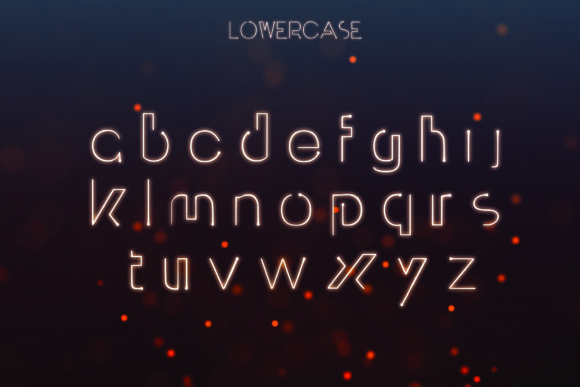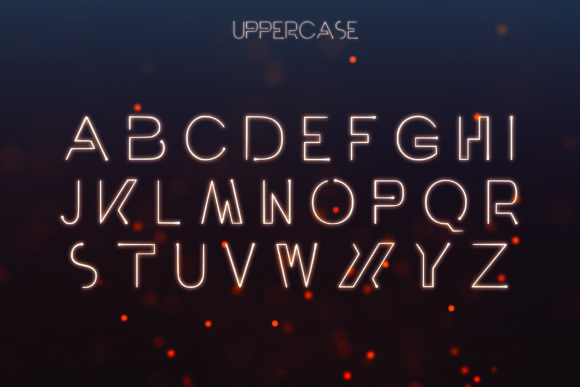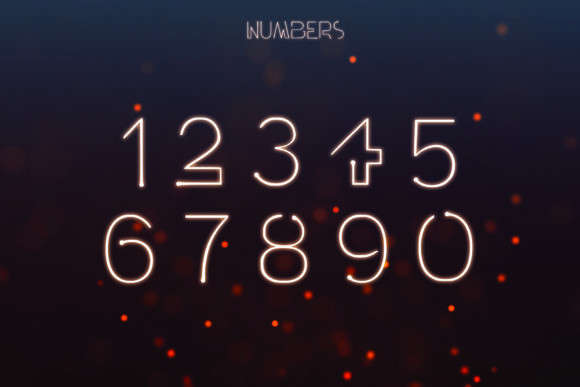
Introduction to Perehilion Font
Imagine you’re working on a creative project, and the perfect font to elevate your design is just out of reach. The right font can make all the difference in conveying the message and capturing the audience’s attention. But what if you stumbled upon a font that not only meets but exceeds your expectations? Welcome to the world of Perehilion Font, a game-changing display font that’s about to revolutionize the way you design.
As a designer, you’re constantly on the lookout for high-quality design resources that can help you take your projects to the next level. Perehilion Font is one such resource that’s sure to impress. With its futuristic feel and sleek design, this font is perfect for any creative project that requires a touch of modernity. And the best part? It’s available for free download, making it an instant favorite among designers.
Whether you’re working on a graphic design project, a website, or a social media campaign, Perehilion Font is an excellent choice. Its versatility and high quality make it an ideal design resource for any creative project. So, what are you waiting for? Get inspired by the futuristic feel of Perehilion Font and take your designs to new heights!
Key Features of Perehilion Font
- High-quality design resource ideal for creative projects and presentations
- Includes a transparent background for easy integration into various designs
- Designed with a modern and elegant aesthetic, suitable for a wide range of applications
- Supports various languages, making it a versatile design resource
Honest Review: Perehilion Font
I recently stumbled upon the Perehilion Font, and I must say it’s a great addition to any designer’s toolkit. The font is a high-quality, modern sans-serif typeface that’s perfect for creative projects that require a clean and sophisticated look.
Here are some of the key features that make the Perehilion Font stand out:
- High-quality, modern sans-serif typeface
- Only available in a single weight (no light or bold options)
- No italics or obliques available
- May not be suitable for complex, multi-line text
Overall, I’m really impressed with the Perehilion Font. It’s a solid choice for any designer looking for a clean, modern typeface that’s easy to use and customize. Just be aware of the limitations, and you’ll be good to go!
The Perehilion Font is a versatile and elegant design resource ideal for creative projects. It’s available for free download and features a high-quality, transparent background.
Tips for Getting the Most Out of Perehilion Font
Use the Perehilion Font for headings and titles to add a touch of elegance to your design.
Combine the Perehilion Font with other design elements to create a unique and eye-catching visual effect.
The Perehilion Font is ideal for:
Designing invitations and event materials
Creating logos and branding materials
Adding a touch of elegance to presentations and documents
Q: Is the Perehilion Font a high-quality design resource?
Yes, the Perehilion Font is a high-quality design resource, carefully crafted to provide a unique and visually appealing look for your creative projects. With its extensive character set and advanced typographic features, the Perehilion Font is an excellent choice for designers seeking a reliable and